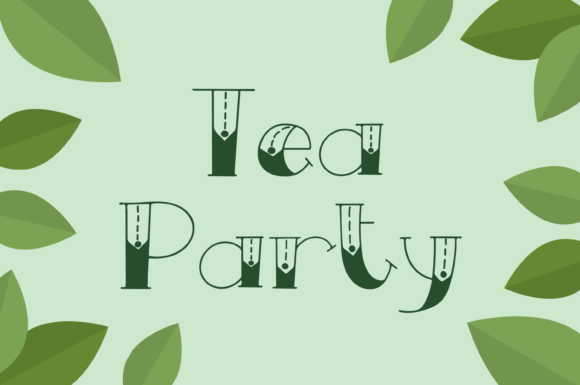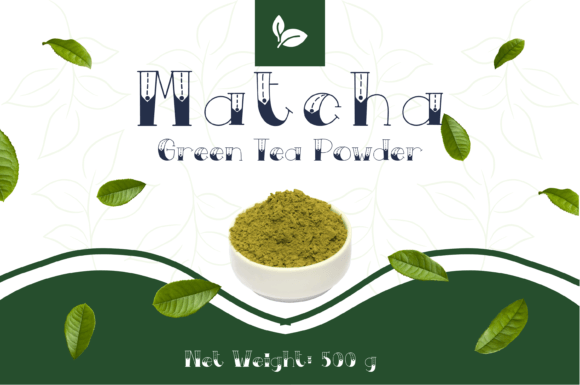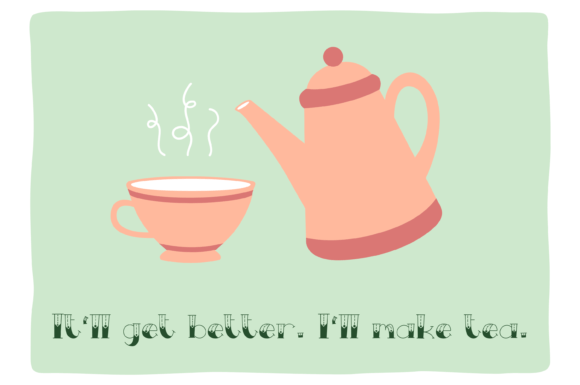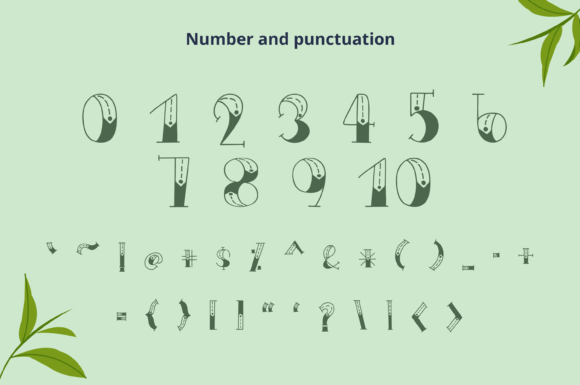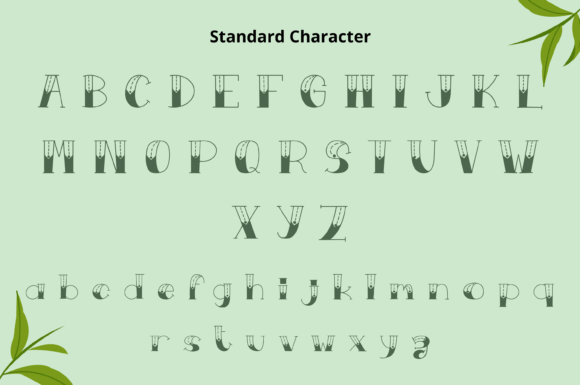
Introduction to Matcha Tea Font
Have you ever been stuck on a creative project, staring at a blank screen, searching for that one element to bring it all together? You know, that elusive spark that sets your design ablaze? For designers, finding the perfect font can be just that game-changer.
Enter Matcha Tea Font, a delightful and fresh display font that’s about to become your new go-to design resource. This high-quality font is not only adorable but also incredibly versatile, making it the perfect match for a wide range of creative projects.
Key Features of Matcha Tea Font
- High-quality design resource perfect for creative projects, offering a unique and elegant touch.
- Includes a range of font styles and sizes, with resolutions up to 300 DPI for crisp and clear display.
- Unique, hand-drawn design elements make it an ideal choice for designers seeking a distinctive aesthetic.
- Supports a wide range of languages, making it a versatile design resource for various creative projects.
Honest Review: Matcha Tea Font
I recently had the chance to work with the Matcha Tea Font, and I must say it’s been a fantastic addition to my design projects. As a designer, I’m always on the lookout for high-quality fonts that can elevate my creative work. The Matcha Tea Font does just that.
What works well with this font is its unique, elegant design. The typography is crisp and clean, making it perfect for use in headers and titles. The font also comes with a transparent background, which is a great feature for designers who want to customize the look of their design resource.
- ✨ Unique and elegant design
- ✨ High-quality typography
One limitation I’ve noticed with the Matcha Tea Font is that it may not be suitable for use in body text. The font is quite decorative, so it’s best used sparingly to add emphasis to specific parts of your design.
Overall, I’m really impressed with the Matcha Tea Font. It’s a great design resource that can add a touch of elegance to any creative project. If you’re looking for a high-quality font to elevate your design work, I would definitely recommend checking out the Matcha Tea Font.
Tips for Getting the Most Out of Matcha Tea Font
To maximize the use of Matcha Tea Font, experiment with different font sizes, colors, and combinations to achieve the desired look. You can also pair the font with other design elements to create a cohesive, high-quality design.
Common Use Cases for Matcha Tea Font
Matcha Tea Font is suitable for a variety of creative projects, including wedding invitations, business cards, and branding materials. Its elegant, sophisticated design makes it an excellent choice for high-end projects that require a touch of luxury and sophistication.